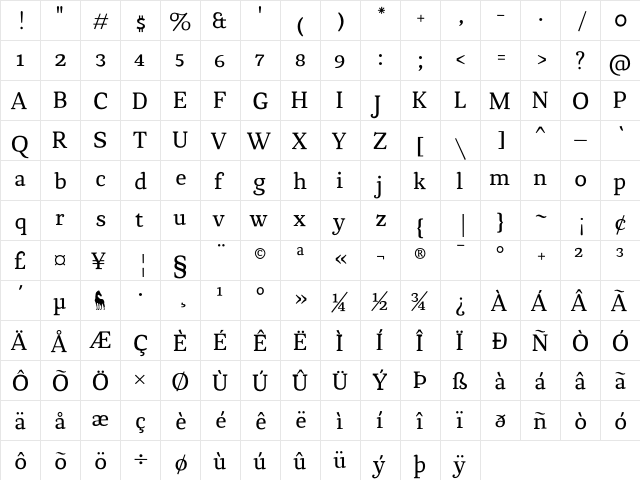
Chucaratext Regular
| Foundry | Juan Pablo De Gregorio Concha |
| Designer | Juan Pablo De Gregorio Concha |
Design Context for Chucaratext Typeface
Chucaratext takes a measured approach to typography — its balanced proportions and neutral character make it a reliable workhorse for both digital and print work.